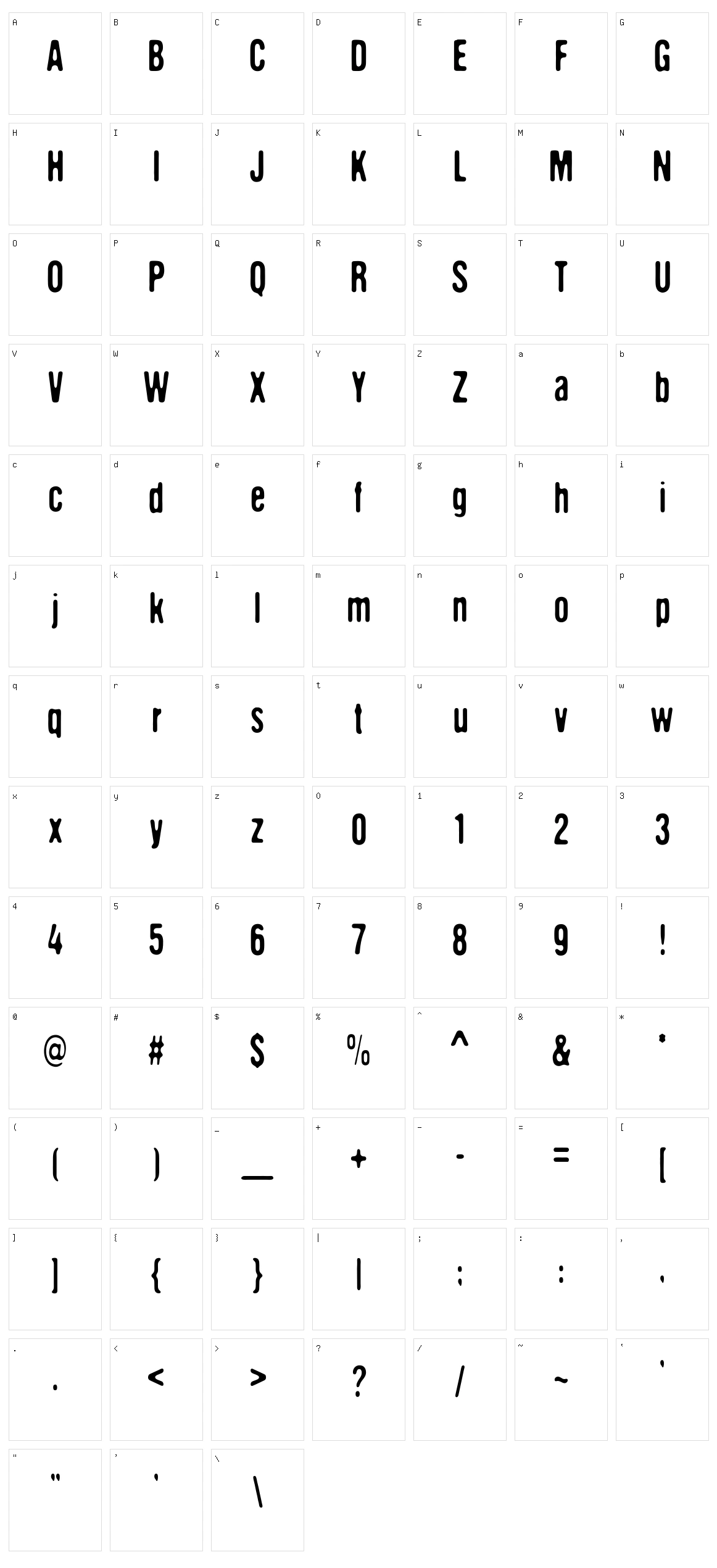
The free font DCC The aliens are coming is carefully designed by dccanim, showcasing a thoughtful balance of creativity and usability and falls under the Eroded font style. When you download the ZIP file, it contains only 28.04 KB of font files, making it lightweight and quick to download. Please review the license details below to understand permitted usage and distribution rights. If license information is not available, we recommend using this font for personal projects only or contacting the author directly for commercial usage permissions.